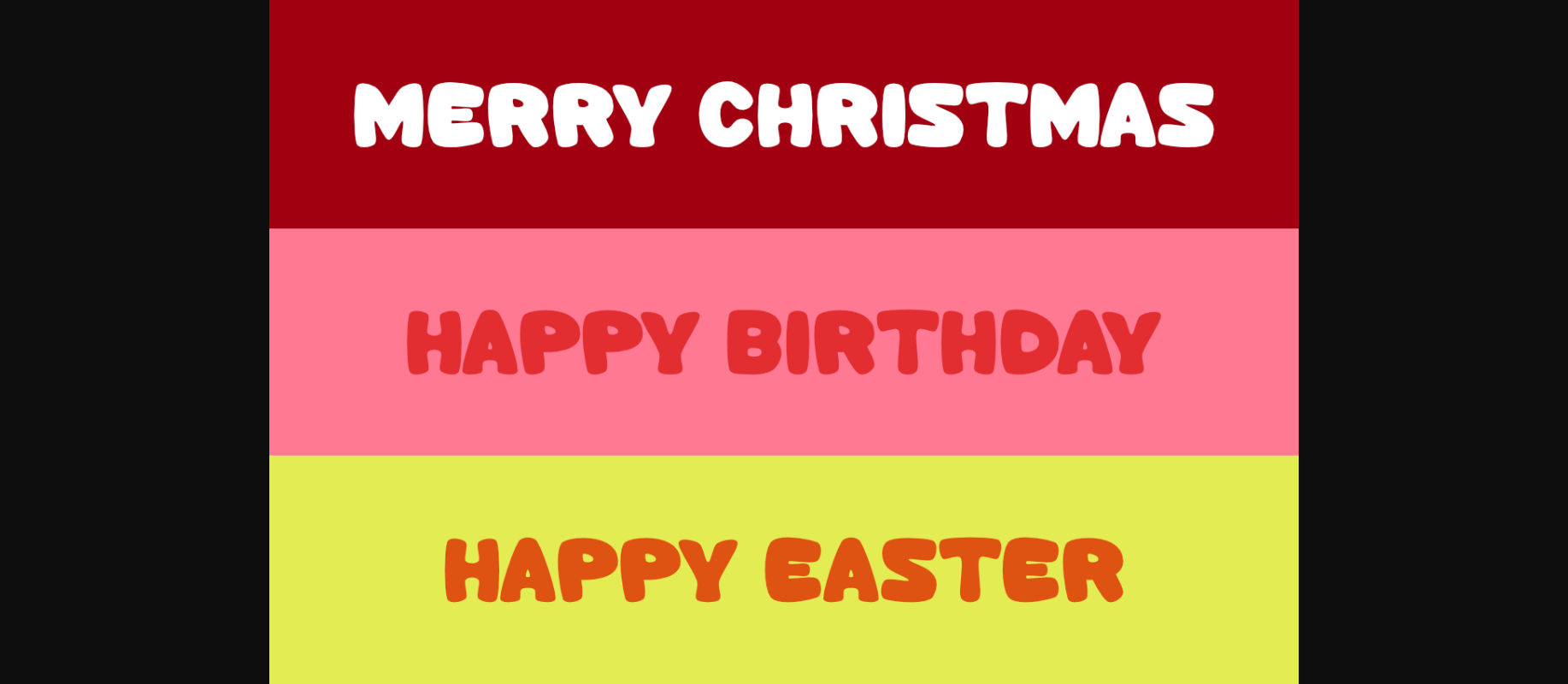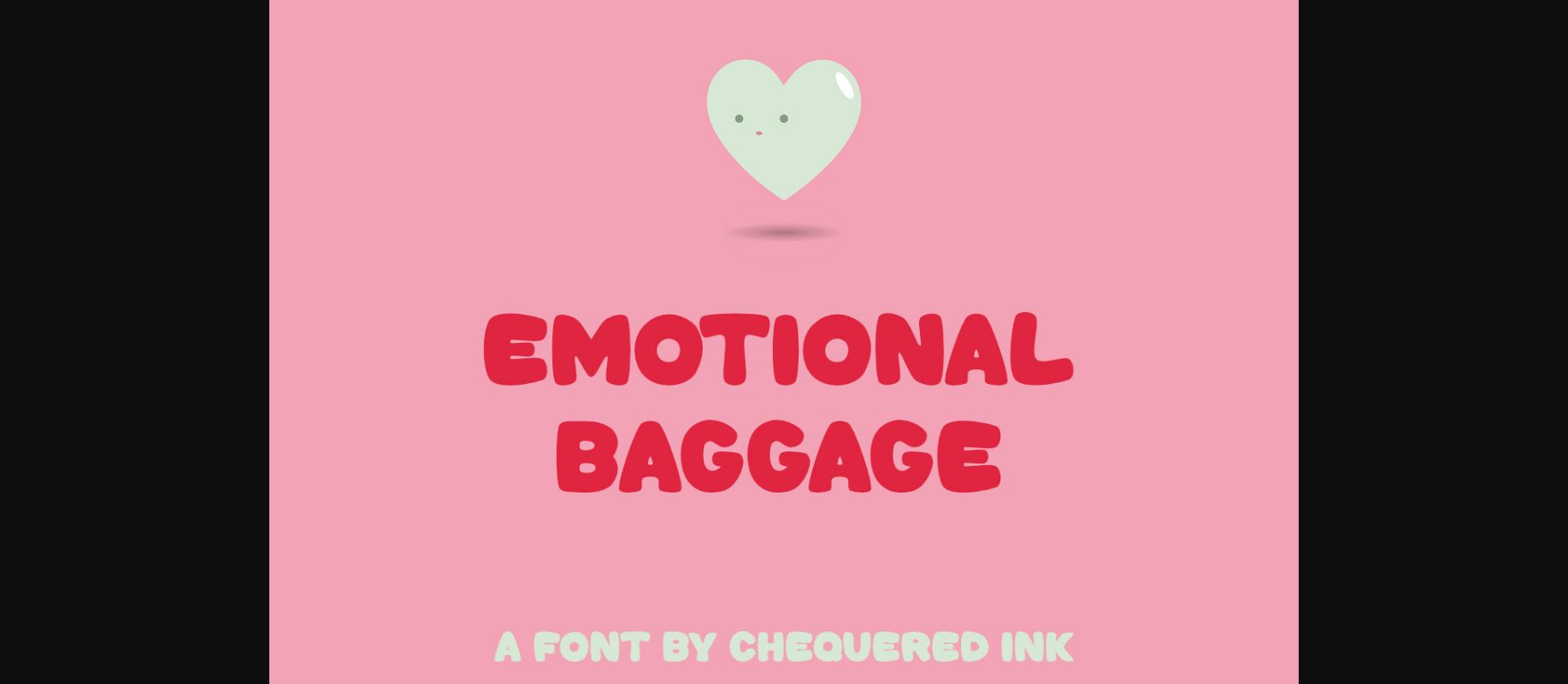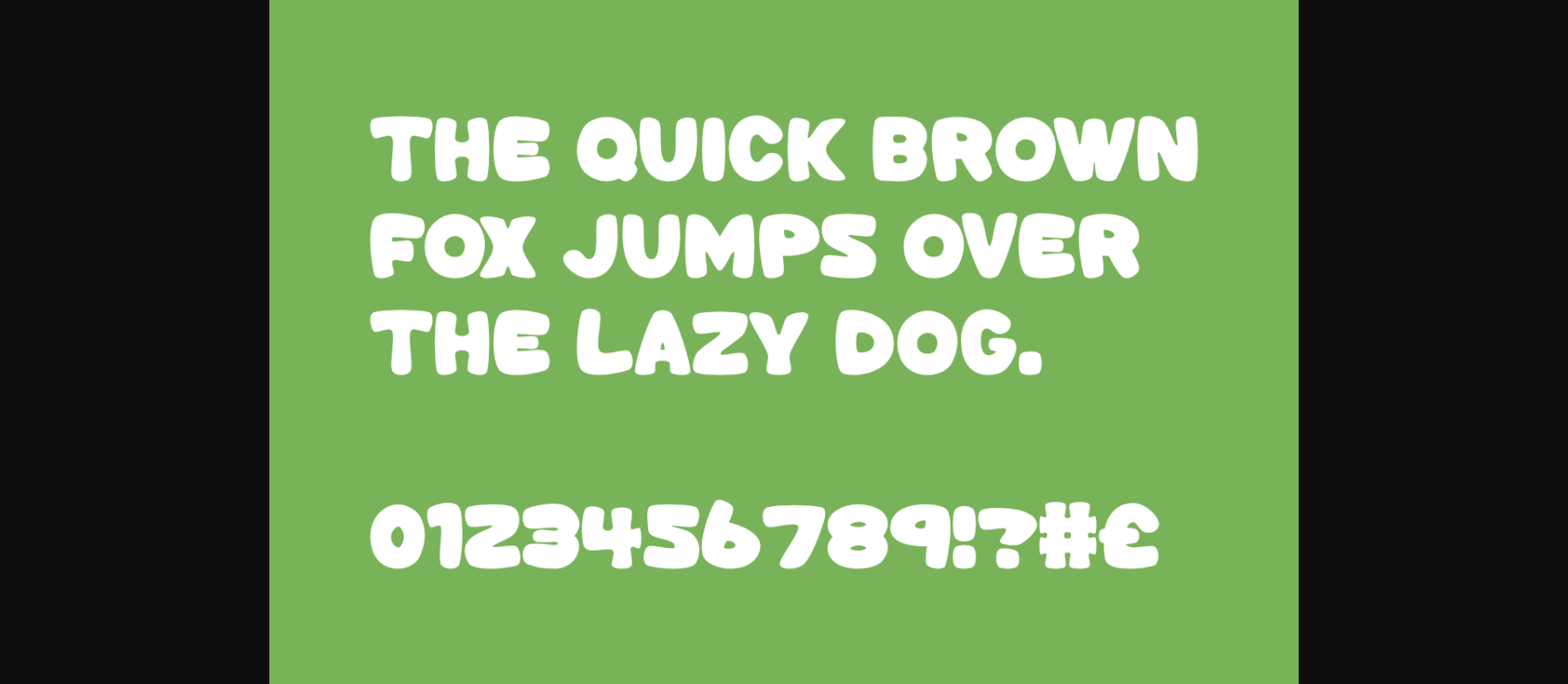
Emotional Baggage Font
About Emotional Baggage Font
Add a touch of whimsy and humor to your greeting cards with our Emotional Baggage font! This playful and quirky font is perfect for creating unique and memorable cards that will make your loved ones smile. With its bold and expressive lettering, it’s sure to stand out from the crowd and add a touch of personality to your designs. Whether you’re looking to create a heartfelt message or a witty one-liner, Emotional Baggage has got you covered. So why wait? Give your greeting cards a fun and lighthearted feel with our cartoony Emotional Baggage font today!